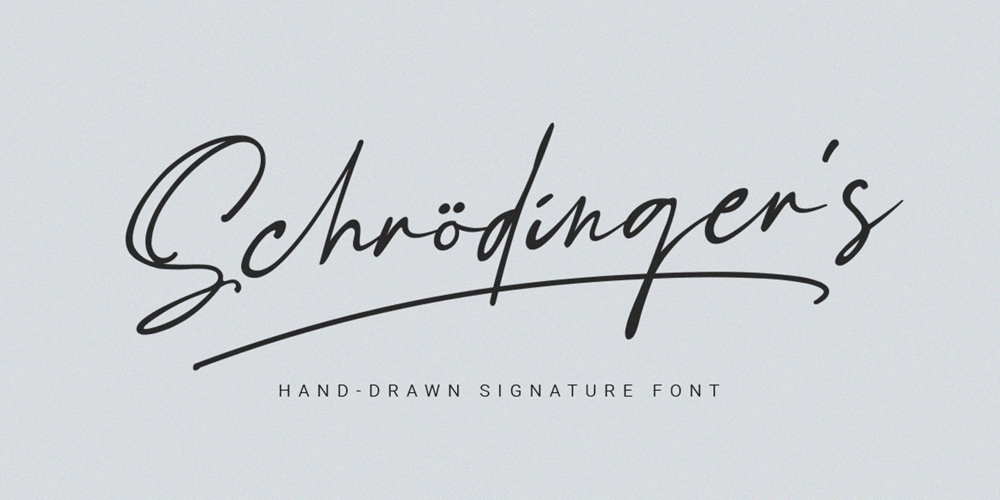
Schrodingers Signature Font Family was designed by Ferry Ardana Putra and published by Ferry Ardana Putra. Schrodingers Signature contains 1 styles and family package options. Schrödinger’s is a remarkable signature font which was made hand-drawn manually using Hitech-C pen, This typeface is very natural-like and make your design stand out! Schrödinger’s is perfect for gorgeous logos, cards, quotes, posters, wedding invitations, blog posts, social media, and more!To keep it more natural-like, we provide you hundreds of ligature! Schrödinger’s font contains following ligatures:aa ab ac ad ae af ah ak al am an ar as and ant at att all av aw ax ay az bb bl bt cc cd ce ch ck cl cm cn cr cs ct db dd dl dt ea eb ec ed ee ef eh ek el em en er es end ent est et ett ell ev ex ey ez ff fi fl fo gh ght gt he ht ib ic idd ie if ih ik il im in ir is ind int ist it itt ill iv ix iy iz kk la le ll lt mm mt ns nt oa oe of oh oi ok ol om oo or os ond ont ost ot ott oll ov ow ox oy oz pp rr sh sl ss st th the tl tt ub uc ud ue uf uh uk ul um un ur us und unt ut utt ull uv uw ux uy uz wh yy zz nnNot only that, we also include swashes and love swashes for those who interested in valentine stuff!Schrödinger’s features:A full set of upper & lowercase charactersNumbers & punctuationMultilingual language supportPUA Encoded Characters+418 GlyphUp to 163 LigaturesSwashesOpenType FeaturesIn order to use the beautiful swashes, you need a program that supports OpenType features such as Adobe Illustrator CS, Adobe Photoshop CC, Adobe Indesign and Corel Draw.For more information about accessing alternative, you can see this link: http://adobe.ly/1m1fn4Y